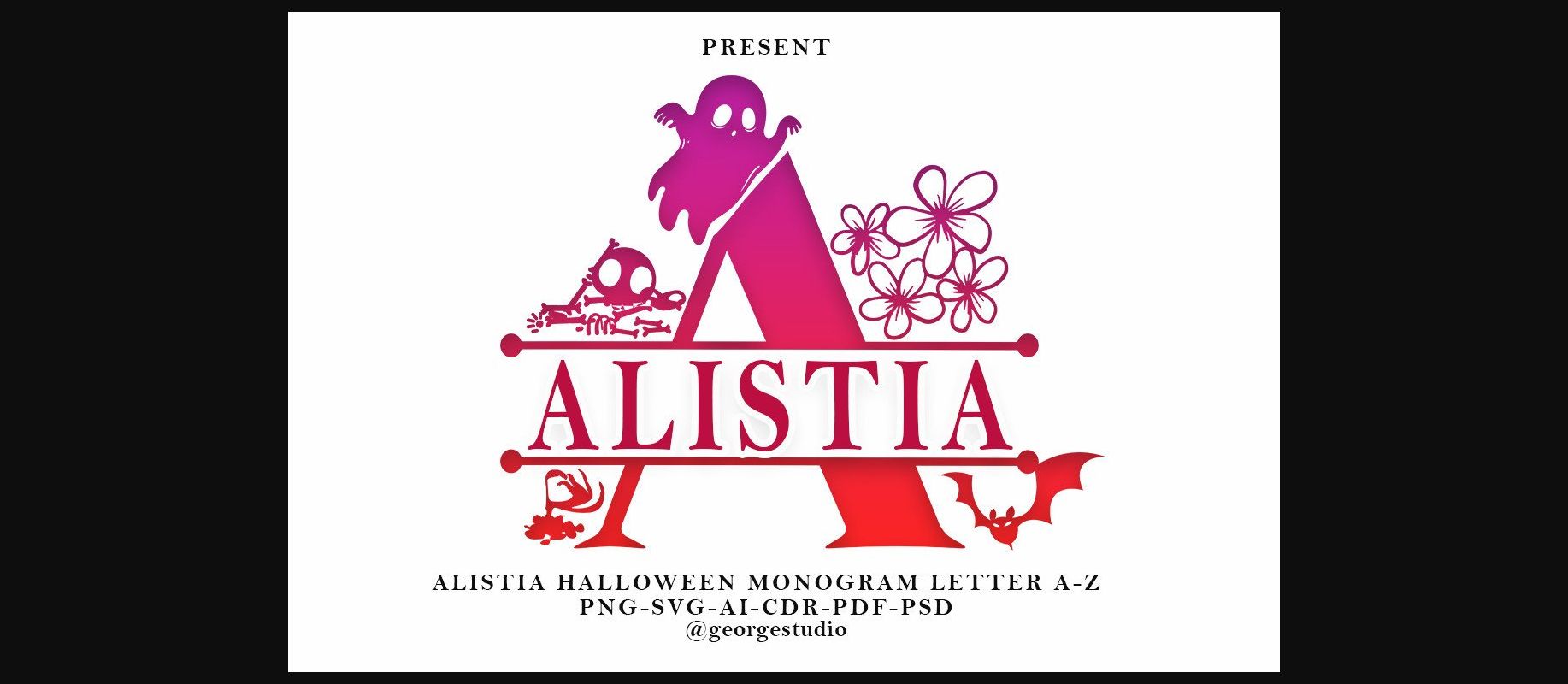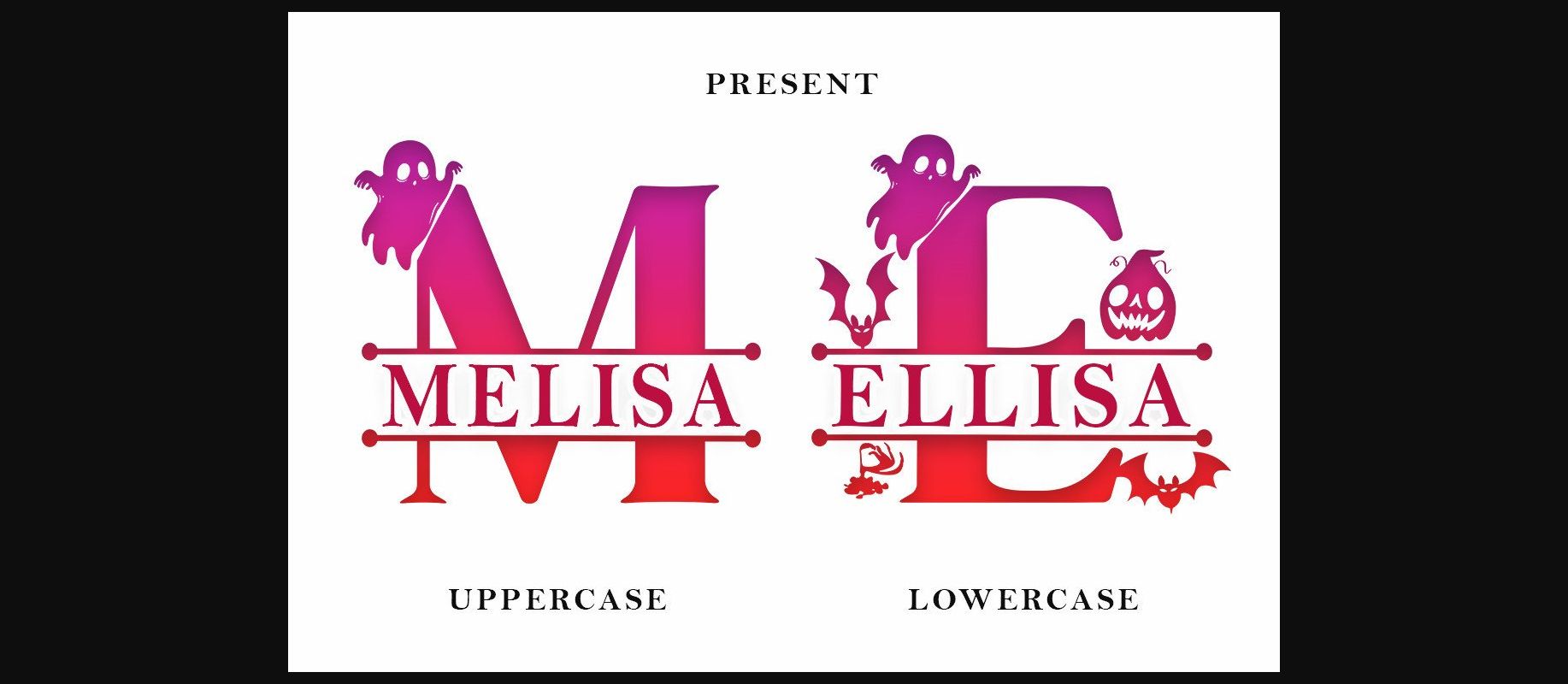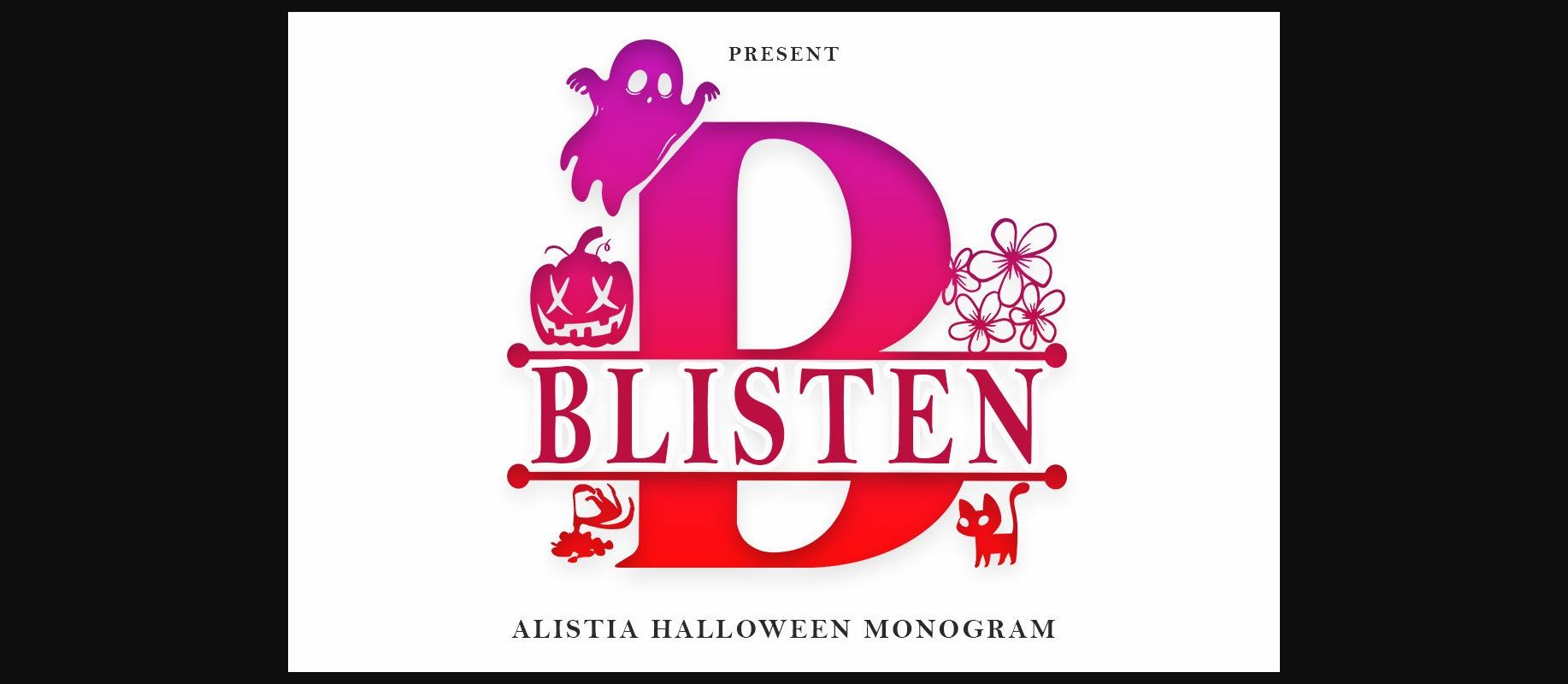
About Alistia Halloween Monogram Font
Alistia Halloween Monogram is a fun decorative font with a Halloween vibe. It is suitable for a variety of designs such as Halloween and horror themed projects. It is perfect for logos, T-shirts, papers, print designs, website headers, photo frames, flyers, music covers, posters, image sliders, and much more.